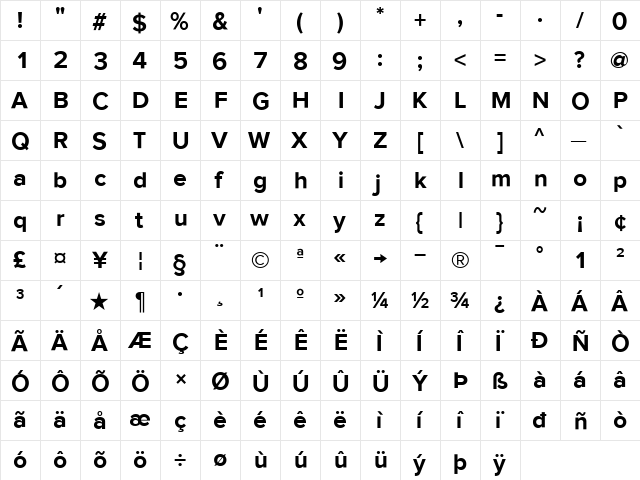
ProximaSansMedium Regular
Design Context for ProximaSansMedium Typeface
ProximaSansMedium offers clean, dependable letterforms without strong stylistic allegiance, making it a practical choice for designers who need flexibility.